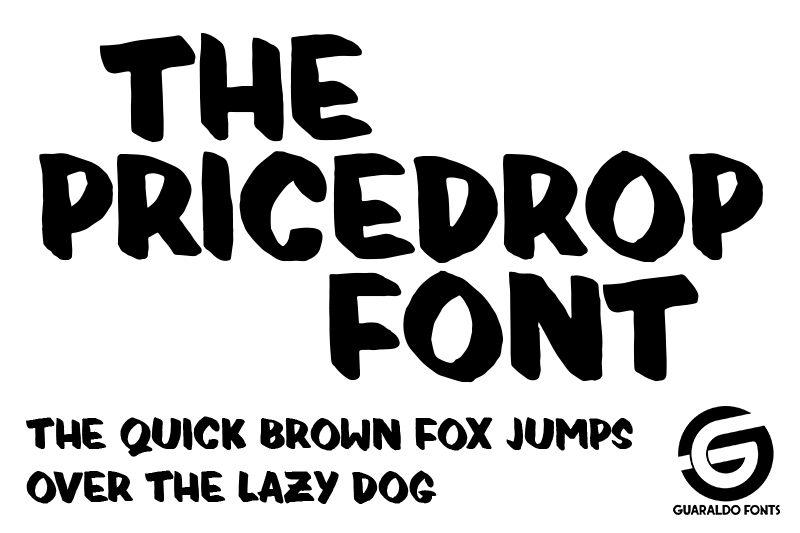
Font name: | Pricedrop |
Author: | Mathias Guaraldo |
Note by Mathias Guaraldo | |
The Pricedrop font is inspired by those handwritten price tags. Very versatile font. |